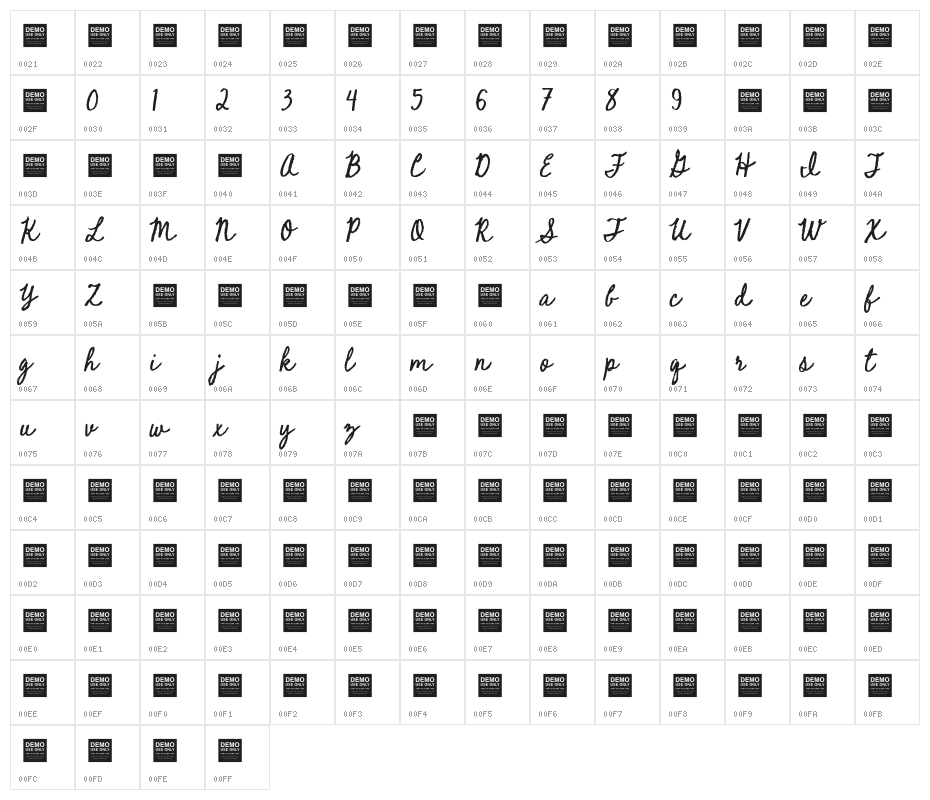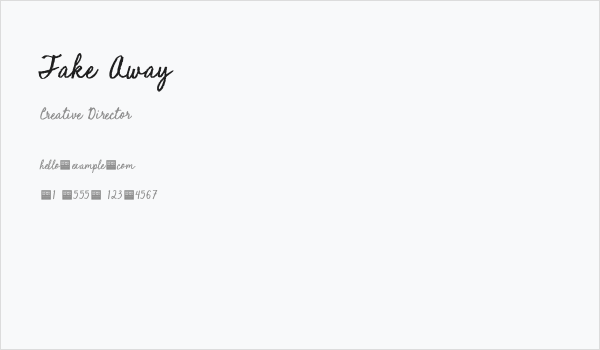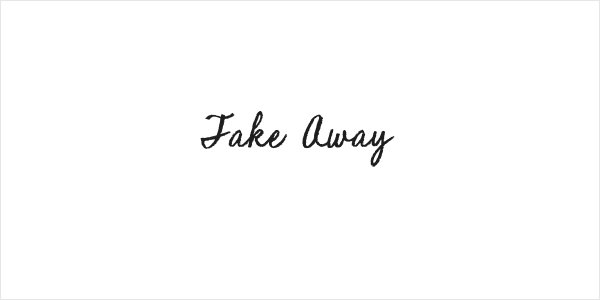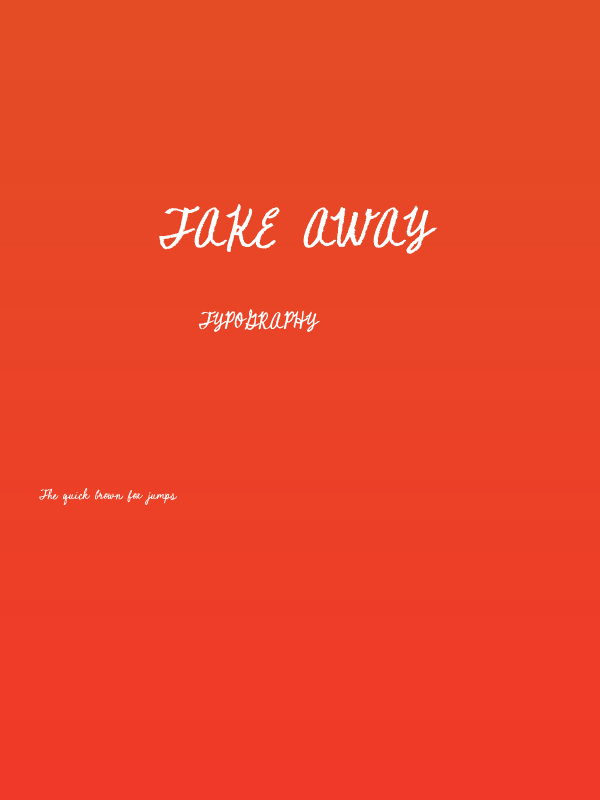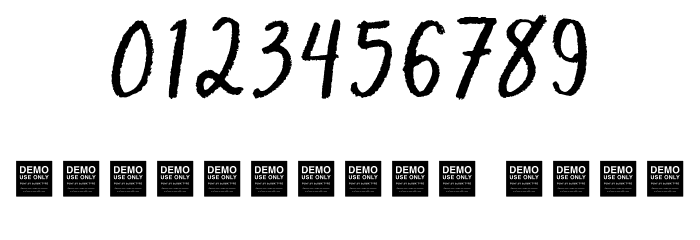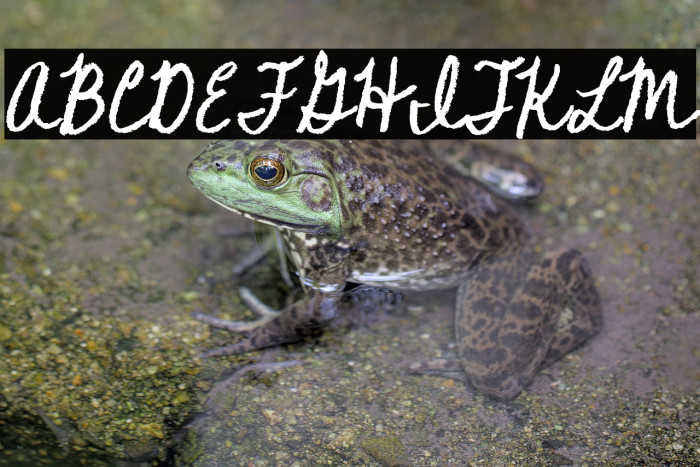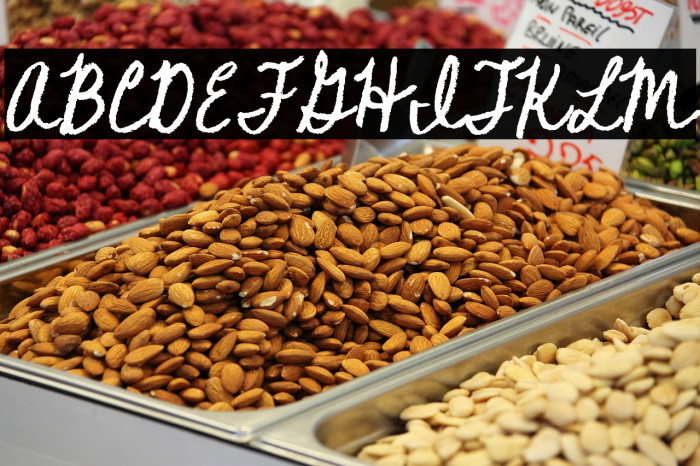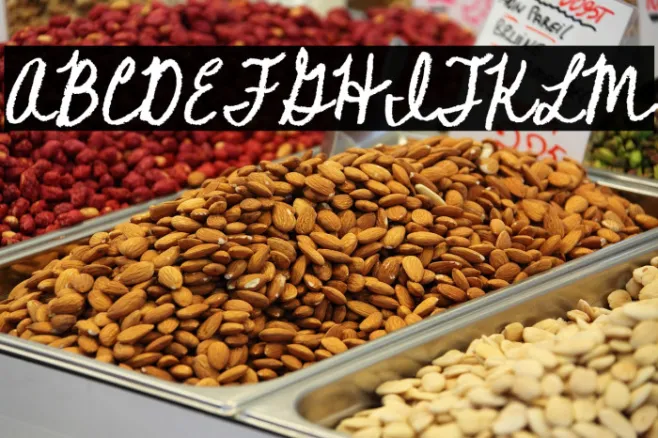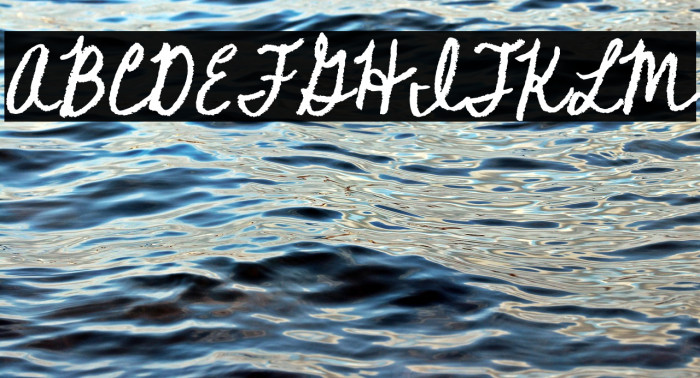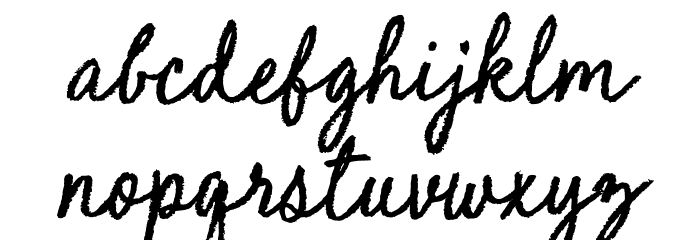
Take Away Font
This font features a handwritten, cursive style that exudes a casual and personal touch. The letters are connected, creating a fluid and continuous flow, which is characteristic of script fonts. The strokes are moderately thick, giving it a bold presence while maintaining legibility. The uppercase letters are slightly larger and more pronounced, while the lowercase letters maintain a consistent height, adding to the font's readability. The numbers and special characters are designed to match the overall style, ensuring a cohesive look across all characters.
| Proposed Projects | Ideal for personal branding, invitations, greeting cards, and creative projects that require a personal touch. |